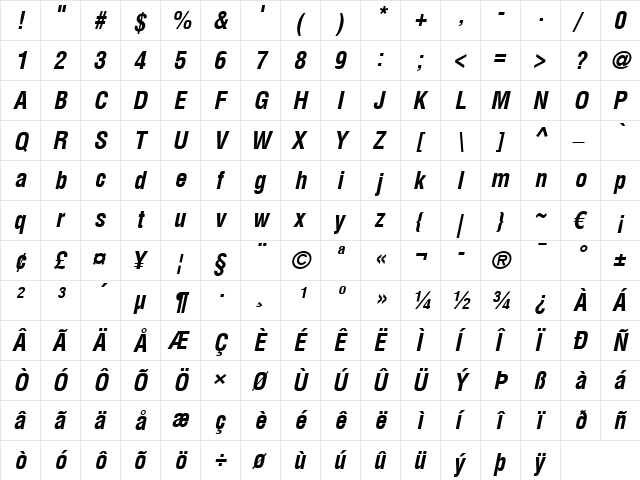
Helvetica LT Condensed Bold Italic Font Preview
Design Context for Helvetica LT Condensed Typeface
Helvetica LT Condensed offers clean, dependable letterforms without strong stylistic allegiance, making it a practical choice for designers who need flexibility. The dynamic lean of this cut emphasises speed and emphasis in any layout. Its bold stroke weight gives it real presence on the page. The condensed width makes it efficient for tight spaces without sacrificing legibility.
Pro Tip: Use Helvetica LT Condensed for emphasis, pull quotes, and subheadings where its slanted energy can add rhythm to the layout.